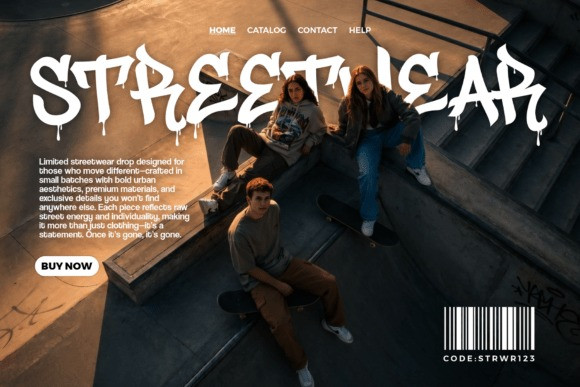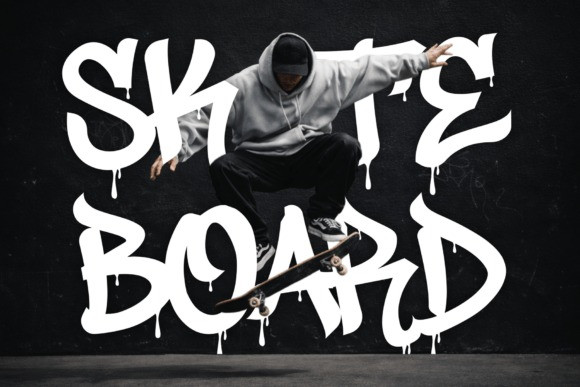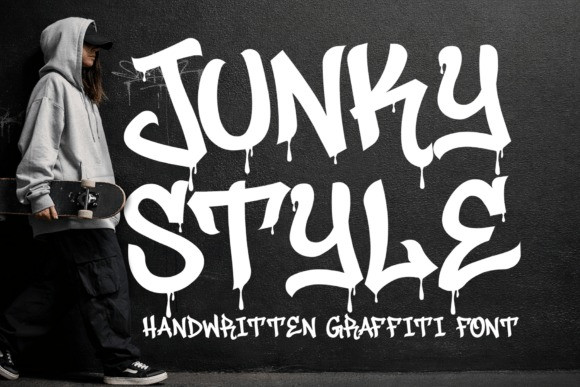
Junky Style Font
Junky Style Font a handwritten display font that captures an “urban-and-rebellious” soul. This typeface features thick, aggressive strokes and authentic paint-drip terminals that mimic the look of a fresh marker tag. With its high-contrast weight and rhythmic, chaotic flow, Junky Style is the premier choice for independent streetwear branding, extreme sports graphics, underground music posters, and high-impact “street-culture” social media headers.